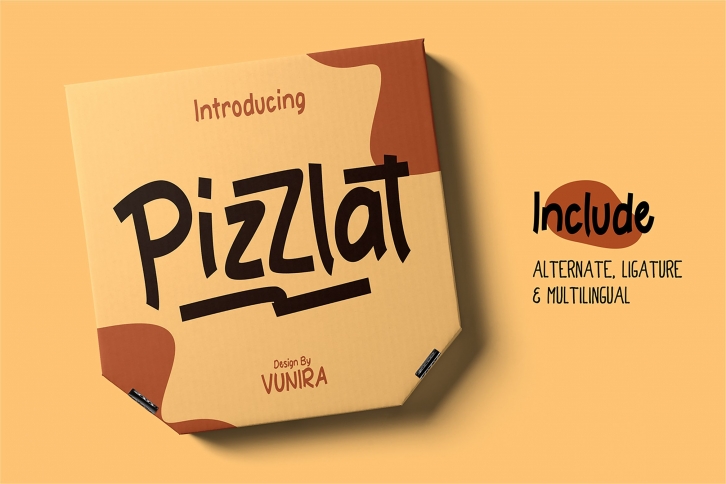
Pizzlat is a trendy and unique font with an authentic style. It was designed by Vunira and it's a great choice for creative people who need such a font. It was released on August 21, 2020 and the file size is 20.75 MB. Pizzlat will add an organic vibe to any design idea!